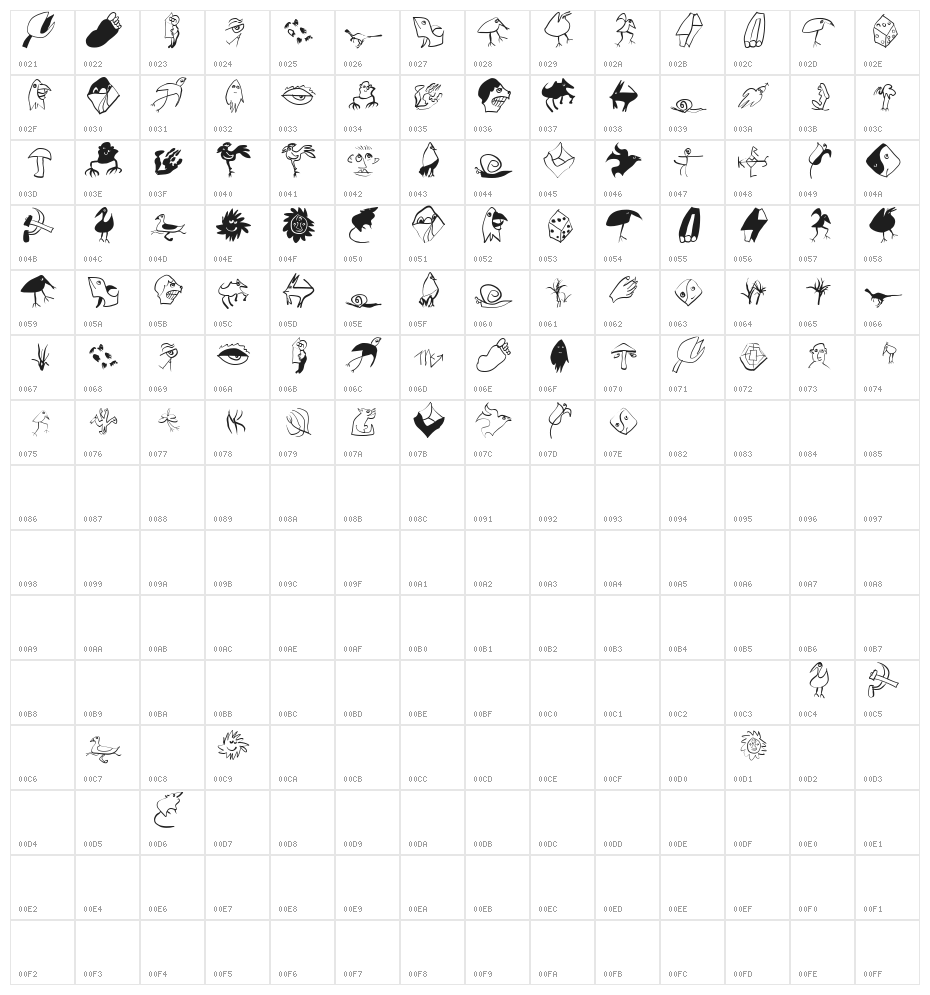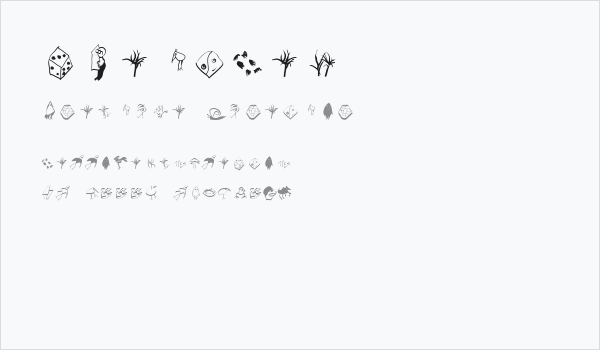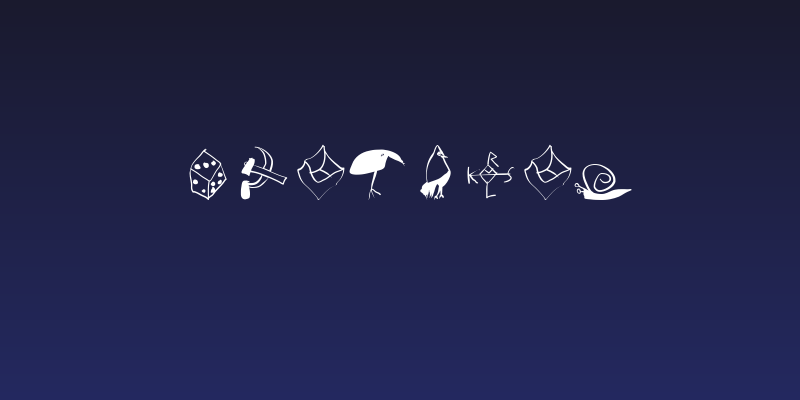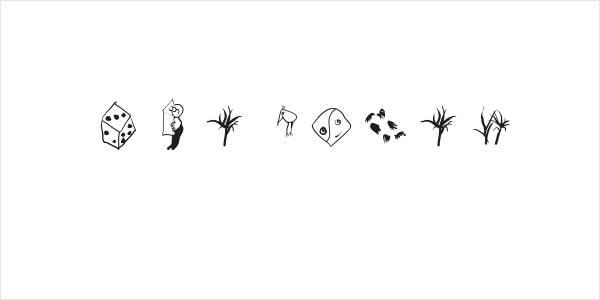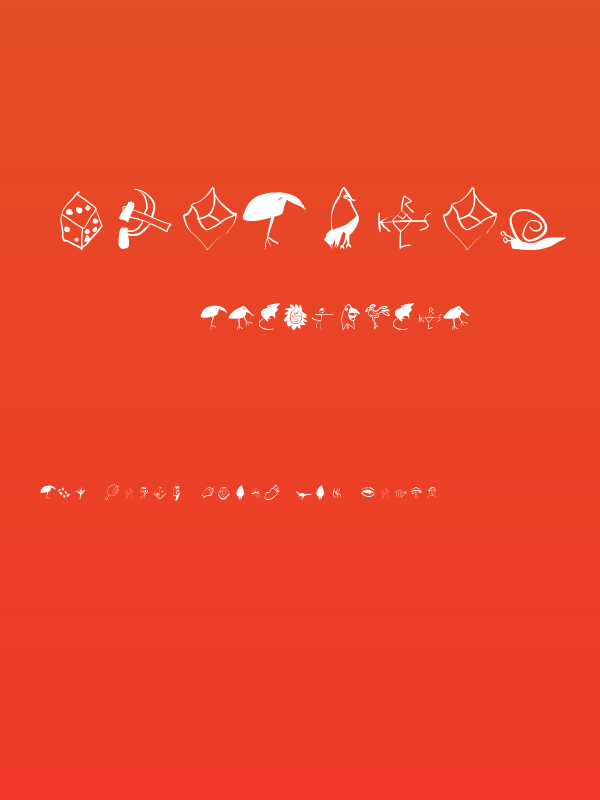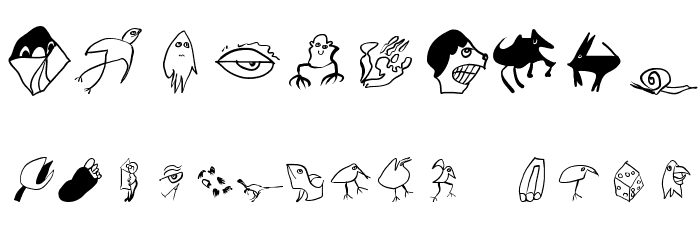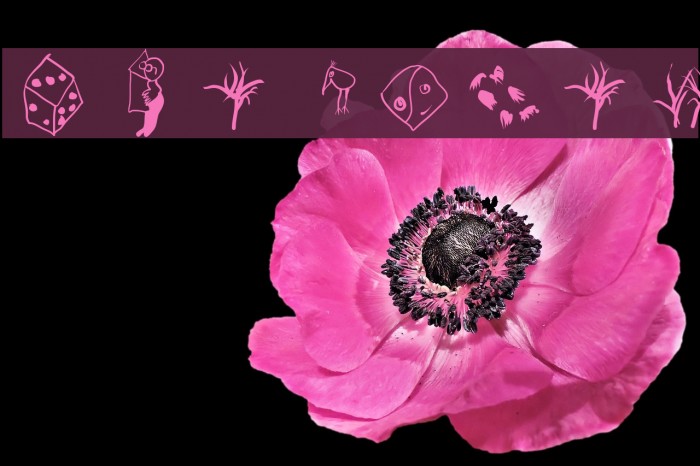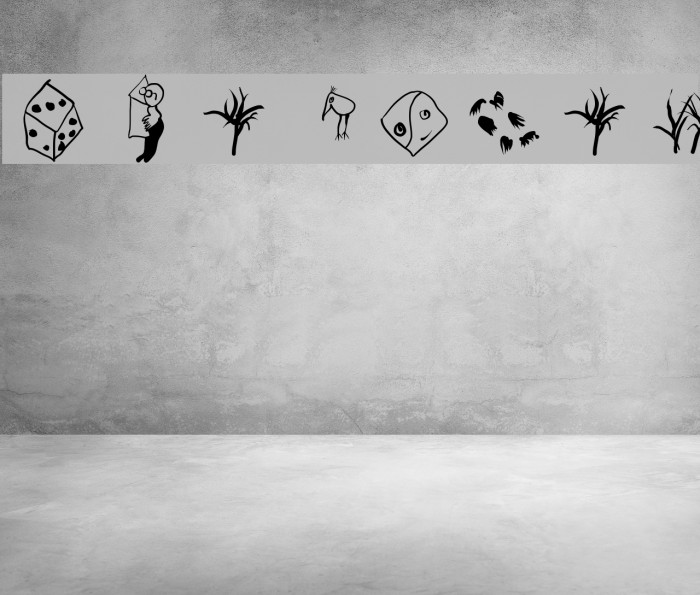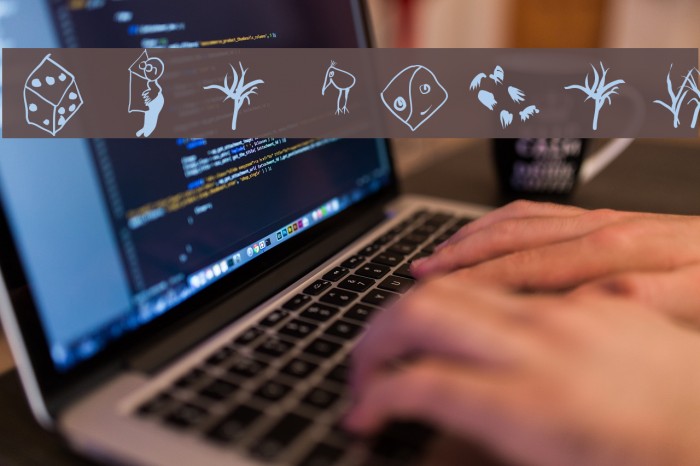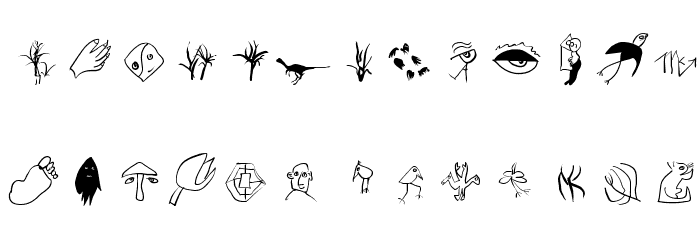
Sketched Font
Sketched Description
A highly decorative and whimsical font composed of hand-drawn, sketch-like illustrations in place of traditional letterforms, featuring playful and abstract representations of animals, faces, plants, and objects.
| Overall Style | Decorative, Whimsical, Artistic |
| Use Case | Logos, Posters, Headlines, Artistic projects |
| Proposed Projects | Children’s books, creative posters, art projects, branding for playful or artistic ventures, album covers. |